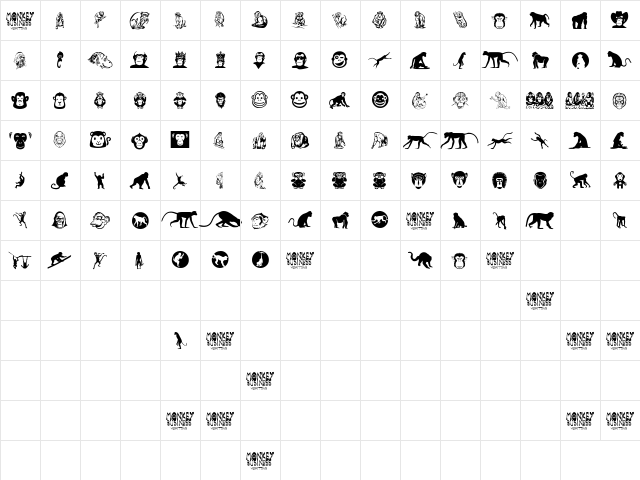
Monkey Business Regular
| Designer | Woodcutter Manero |
Design Context for Monkey Business Typeface
Monkey Business is a composed and adaptable typeface that performs quietly and consistently across a wide range of design contexts.